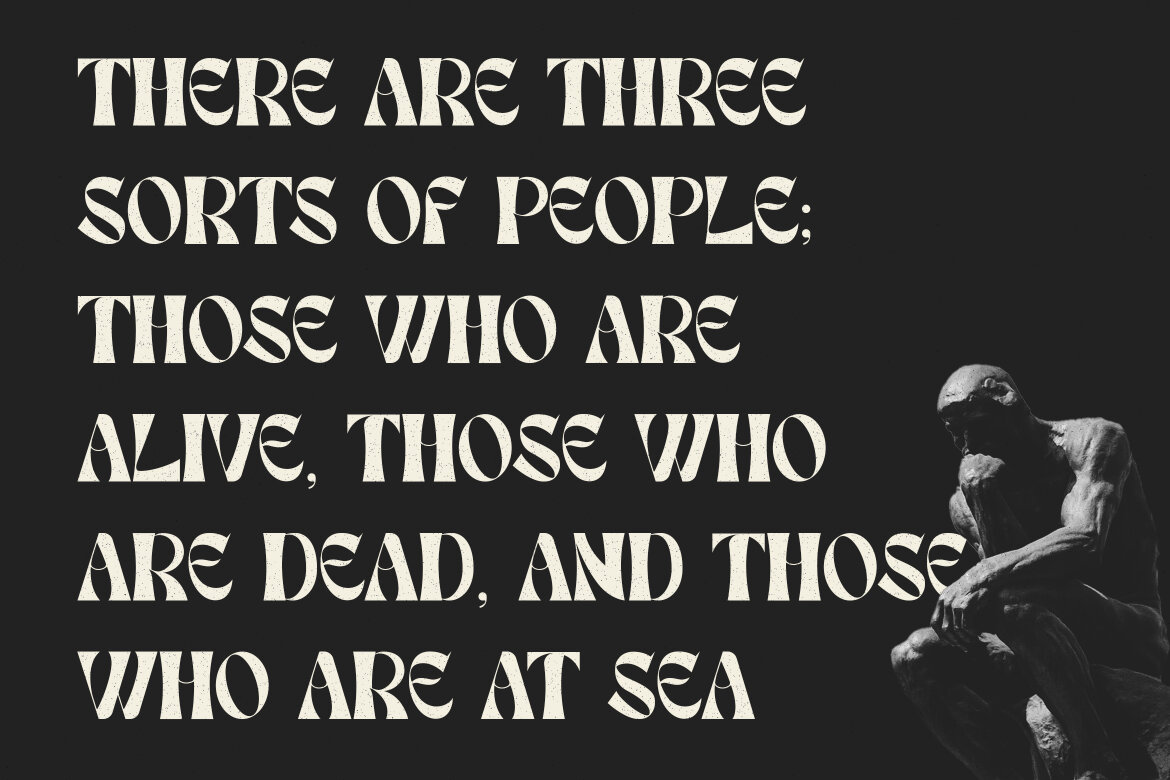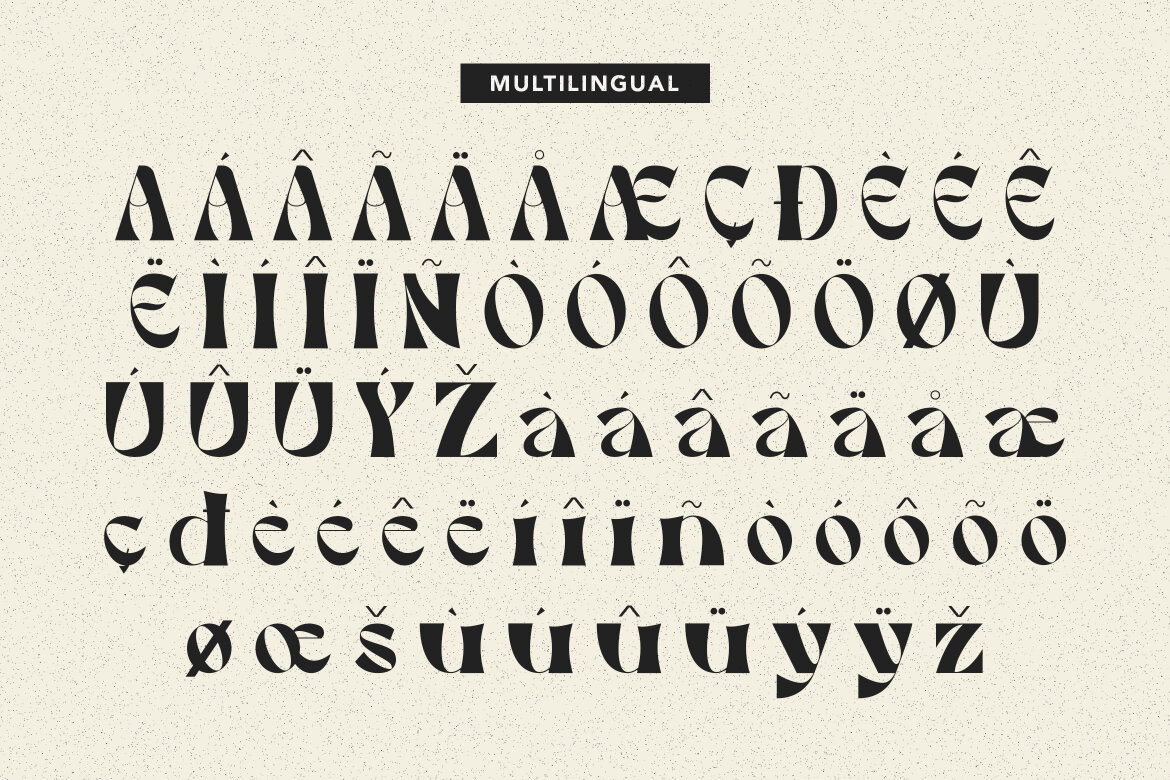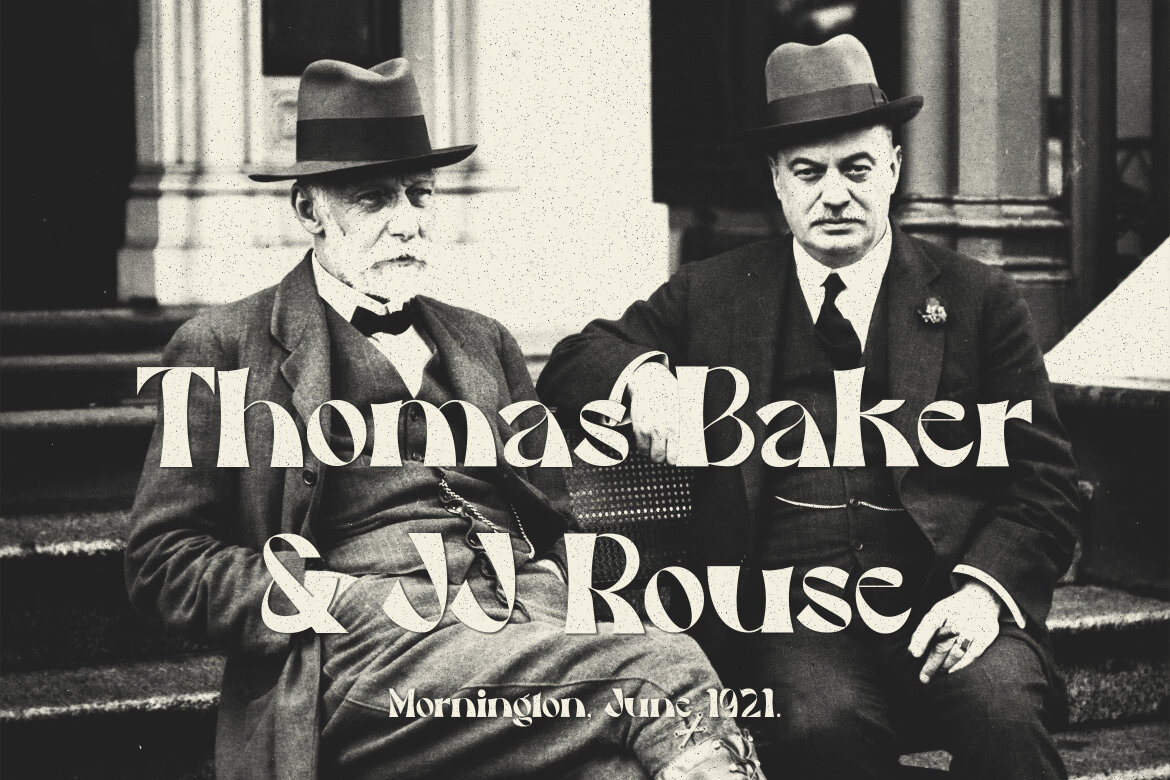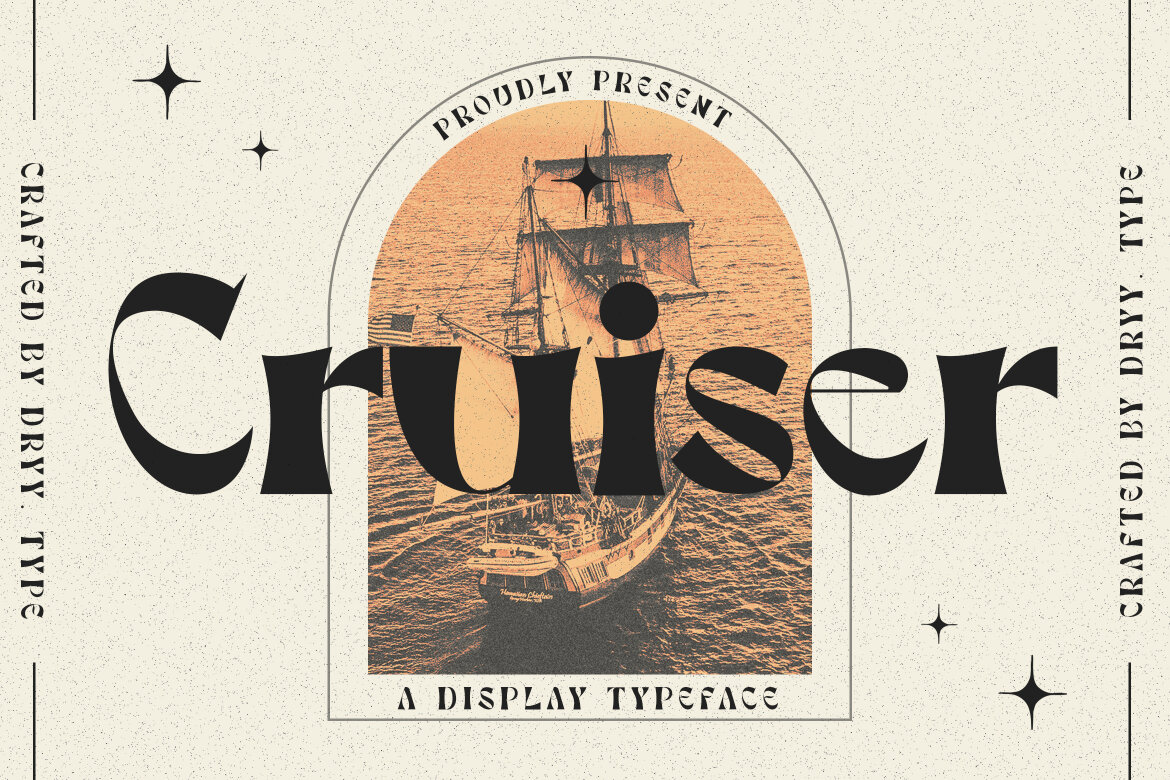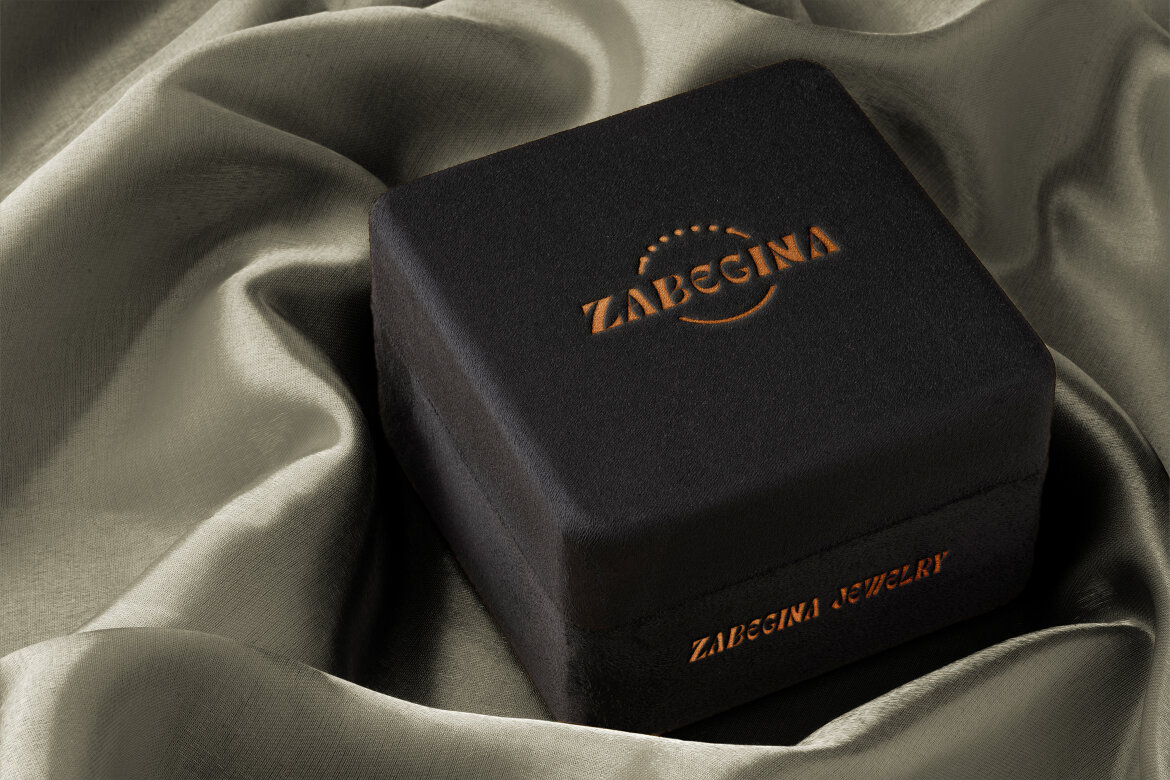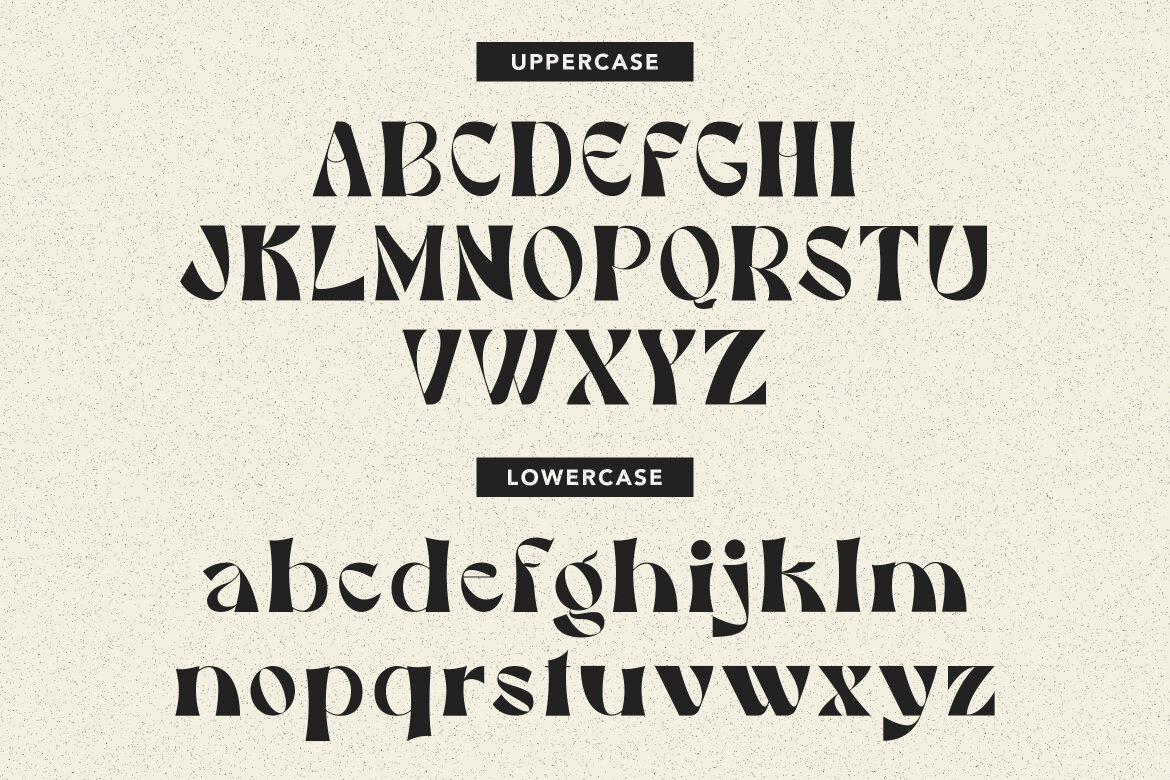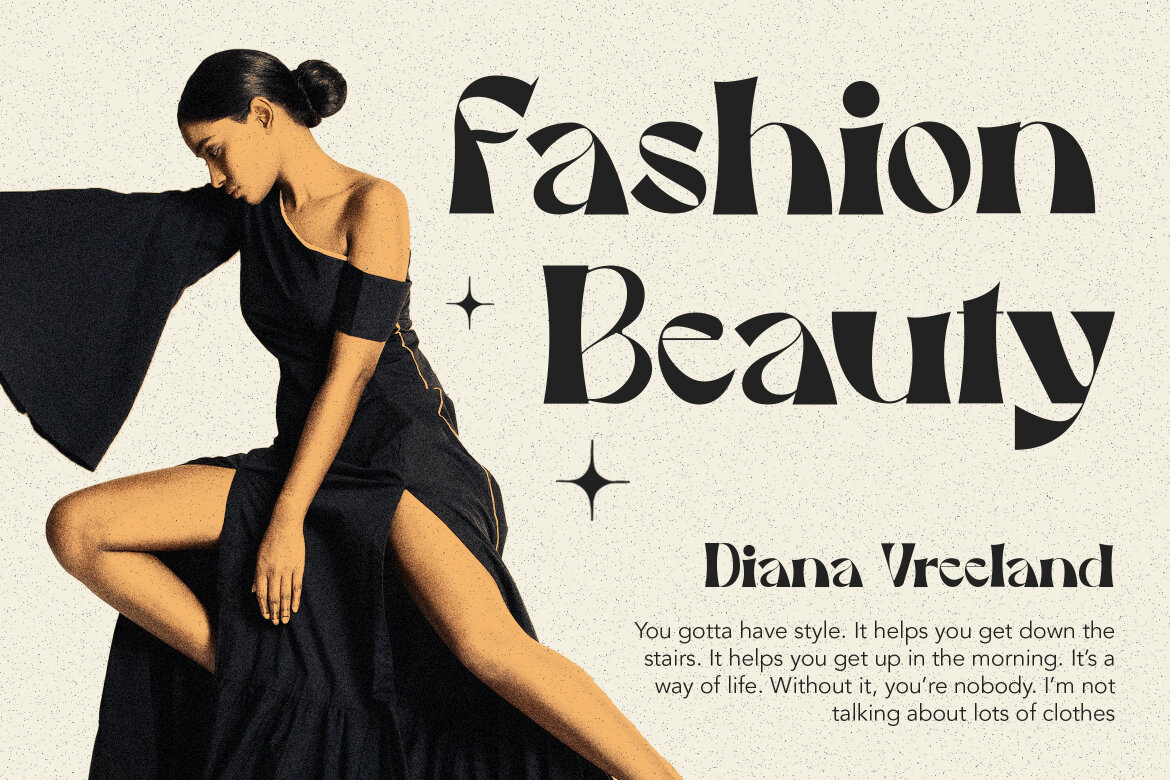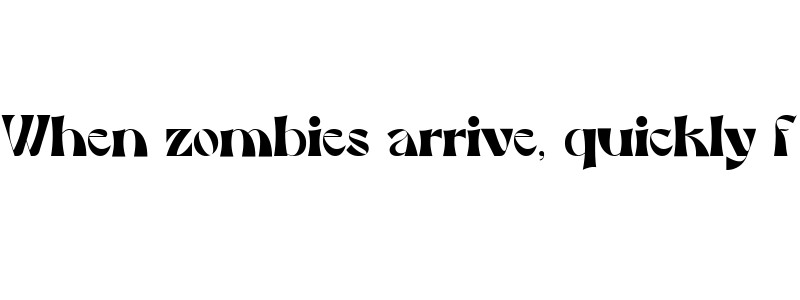
Cruiser FREE Display Font
Cruiser Font
A display font that has a unique character and is elegant to use.
Cruiser is a display type font that is currently a trend. This font I've created is incredibly versatile, and fits well with a variety of designs, elevating them to the highest level. Add this font to your favorite creative ideas and see how it turns out!